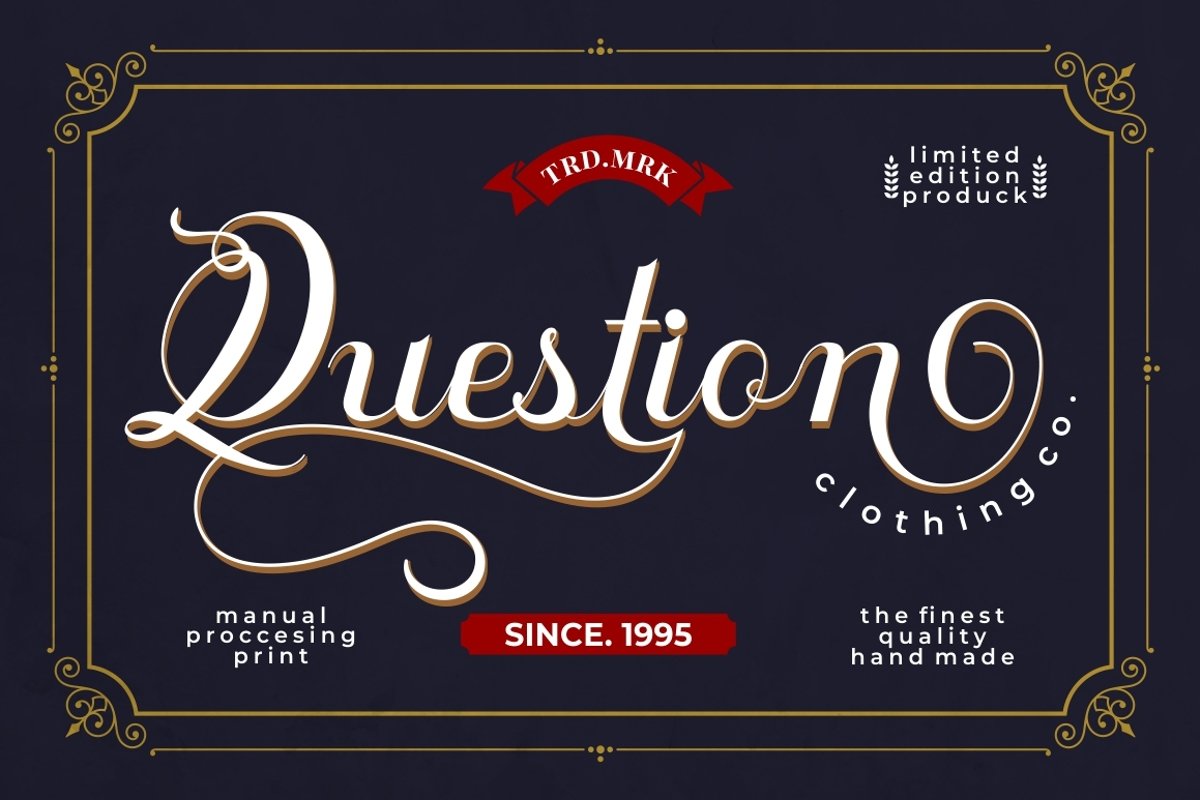
Quentara
Introducing Quentara, a luxurious font with a lot of alternates character.
This font is perfect for logotype creation, lettering compositions, wedding invitations, fashion projects, book design cover, magazines typography, cards, packagings, posters, branding and more.
Come with Opentype feature with a lot of alternates, its help you to make great lettering. This font is also support multi language.
Comes with feature :
- Alternate
- Number, Punctuation And Symbols
- Multilanguage Support.
PutraCetol Design Studio